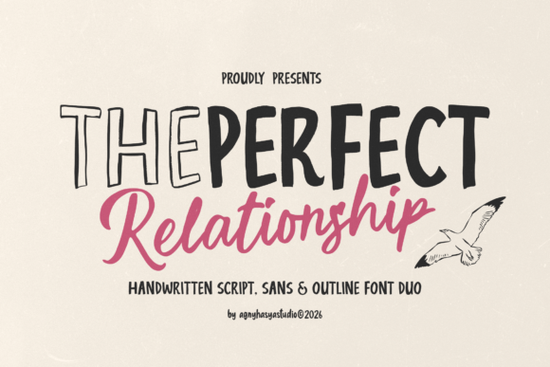
Finding the right typography for lifestyle branding or personal projects often means balancing professionalism with a human touch. The Perfect Relationship Font solves this by offering a handwritten font duo that feels warm, personal, and effortlessly charming. Designed by agnyhasyastudio, this typeface combines a smooth handwritten script with a clean, quirky sans serif, giving you a complete design system right out of the box.
What makes this font duo stand out for modern branding?
The secret lies in its imperfect strokes and organic shapes. Instead of looking rigid or overly polished, the letterforms mimic natural handwriting. This creates a truly human-made feel that resonates well with audiences looking for authenticity. You get three distinct styles to work with: an elegant script for headlines, a bold sans serif for readable body text, and an outline version for playful accents. This versatility means you can build a cohesive visual identity without constantly searching for new typefaces.
How can crafters and small businesses use it in their projects?
Because it adapts beautifully across different styles, this typeface is incredibly useful for everyday design tasks. If you run a small bakery, the clean sans serif keeps your ingredient lists readable, while the script adds a welcoming touch to your logo. Print-on-demand sellers and creative hobbyists will also find it highly practical. Here are a few specific ways to apply it:
- Wedding invitations: Use the script for the couple's names and the sans serif for the event details to keep things legible.
- Café menus: The outline version works perfectly for highlighting daily specials or seasonal drink names.
- Social media quotes: Mix the bold sans for the main message and the script for a stylish, personal signature.
- Feminine product packaging: The organic shapes give skincare or boutique clothing labels a soft, approachable look.
What if I need to mix it with other typography styles?
While this duo is highly versatile on its own, you might occasionally need a different mood for a specific project. If you are working on a formal event and need a more elegant alternative for the main headings, you can easily swap it in. For community newsletters that need a casual, friendly vibe, it pairs nicely alongside your existing layouts. If you ever want to try a retro-inspired style for vintage packaging, or need a bolder script option for high-contrast posters, having a few extra options in your library is always helpful.
- Adjust tracking: Give the sans serif a little extra letter spacing for a more premium look. This small adjustment makes a huge difference on physical packaging.
- Use the outline sparingly: Reserve the outline version for small accents or background watermarks so it doesn't overpower the main script.